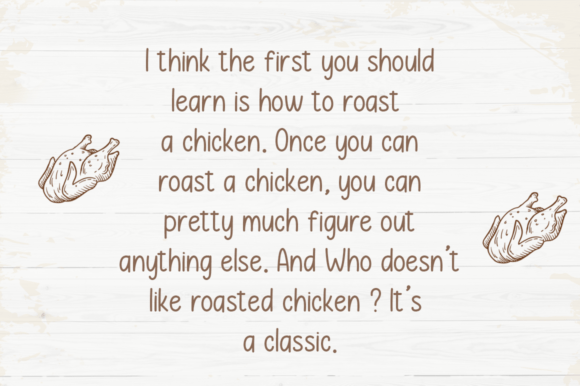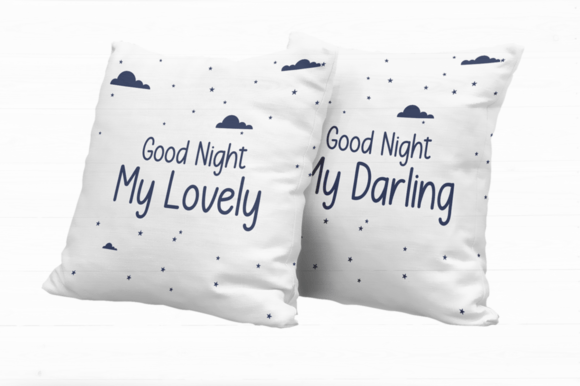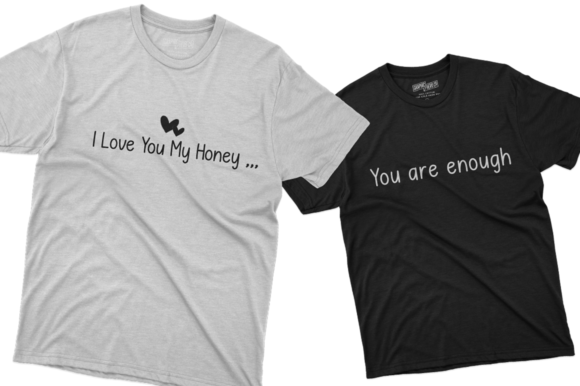
Introduction to Roast Chicken Font
Roast Chicken is a sweet ad natural handwritten font.
It can effortlessly be matched to an incredibly large set of projects, so add it to your creative ideas and notice how it makes them stand out .
Key Features of Roast Chicken Font
Why Choose Roast Chicken Font?
Roast Chicken Font offers exceptional quality and versatility, making it a valuable addition to your design toolkit. Whether you’re creating for personal projects or commercial use, Roast Chicken Font delivers professional results.